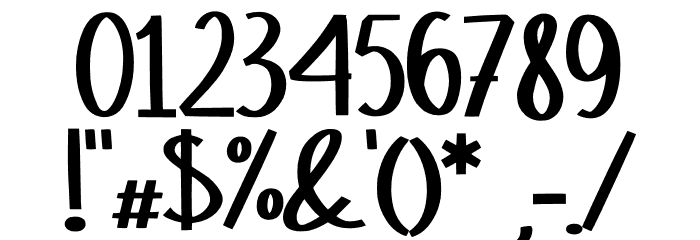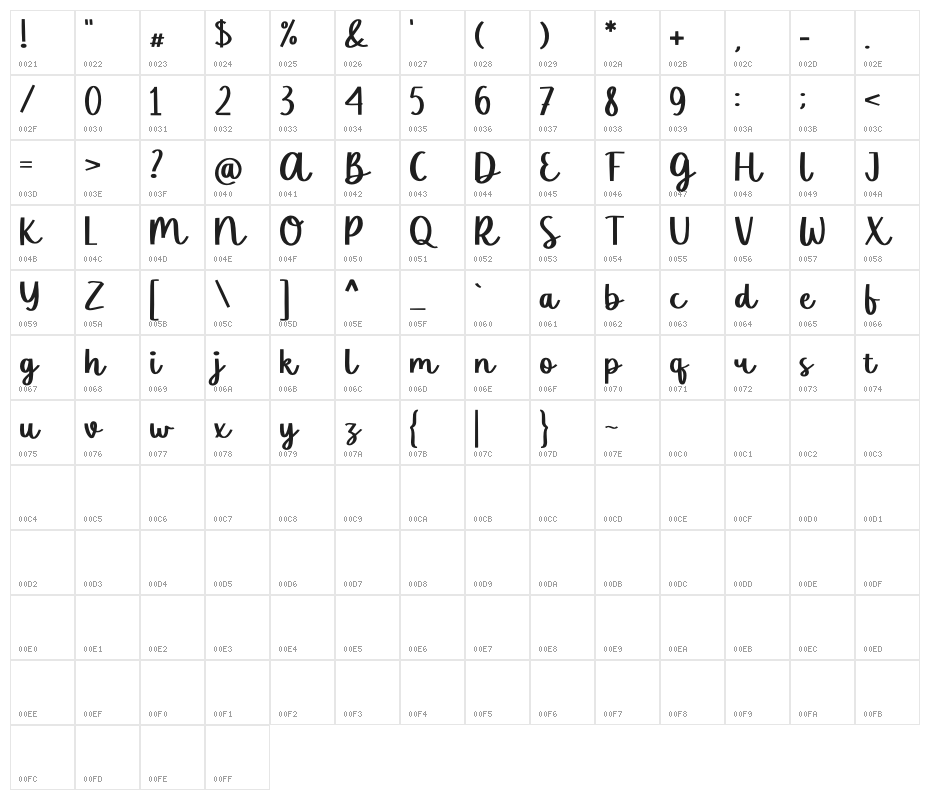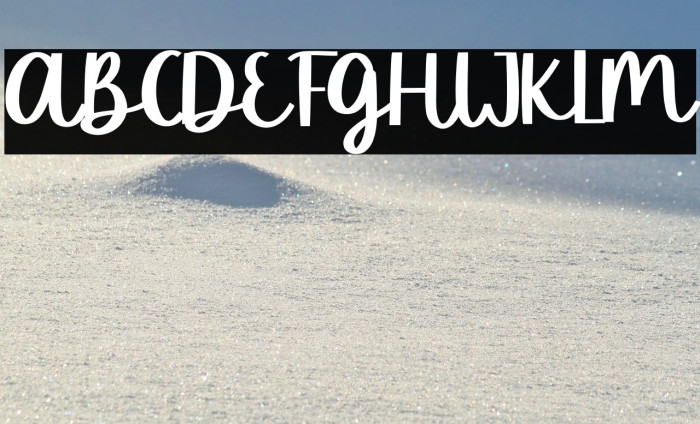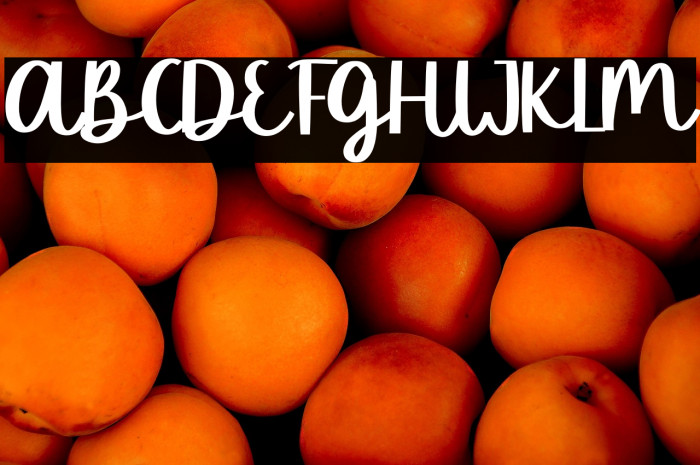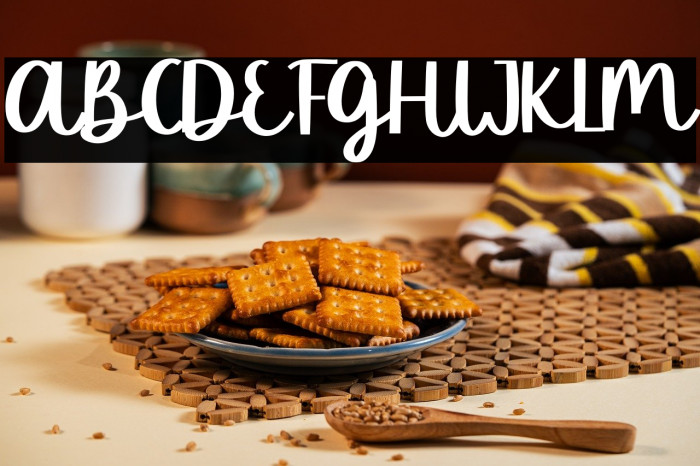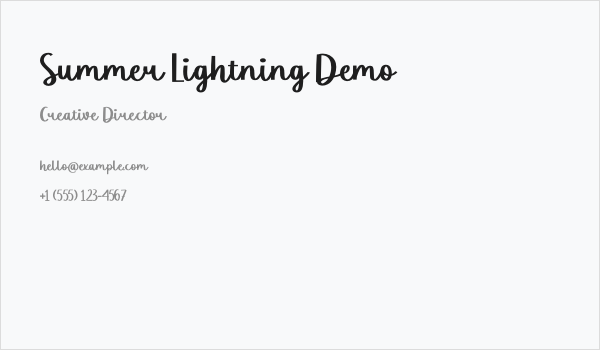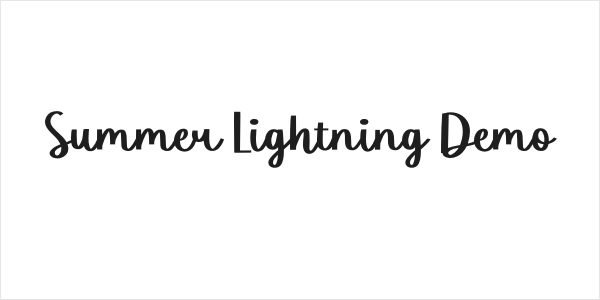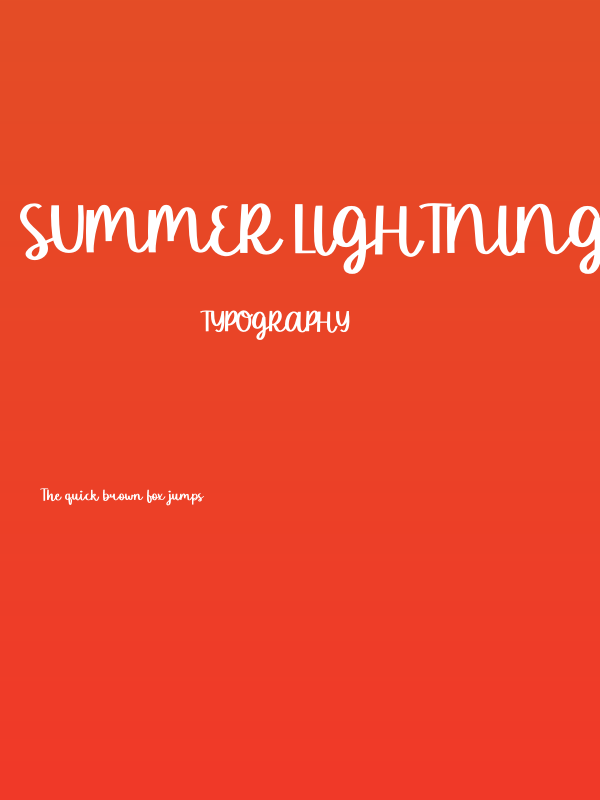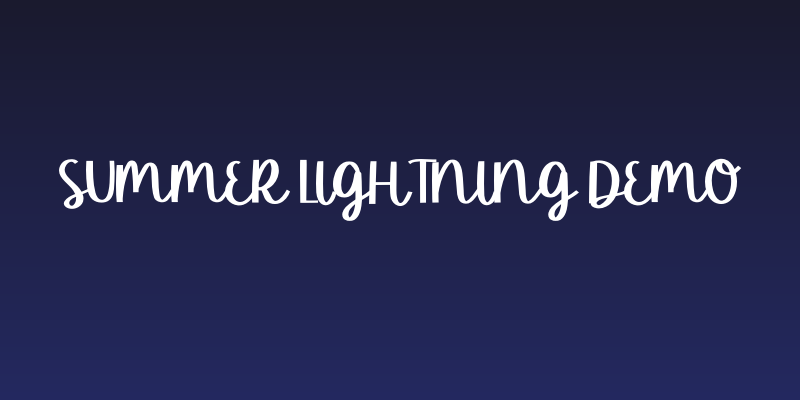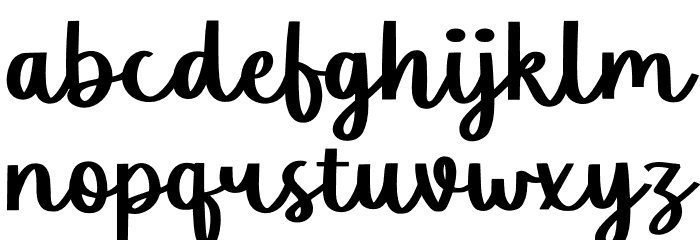
Summer Lightning Demo Font
Summer Lightning Demo Description
This font features a playful and energetic script style, characterized by its bold and flowing letterforms. The uppercase letters exhibit a sense of movement with their slightly slanted orientation and smooth curves, while the lowercase letters maintain a cohesive and harmonious flow. The numbers are designed with a consistent weight, complementing the overall style. Special characters are crafted with the same lively spirit, adding versatility to the font. The strokes are thick and uniform, providing a strong visual impact. This font is ideal for projects that require a touch of whimsy and creativity.
| Overall Style | Playful, Energetic |
| Proposed Projects | Ideal for greeting cards, playful branding, children's books, and creative posters. |